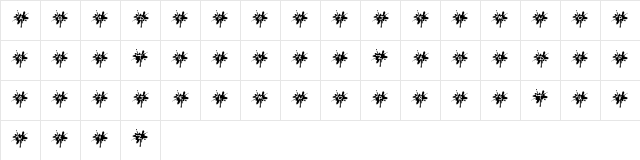
KR Squished Mosquito Regular Free Font
KR Squished Mosquito Regular
Design Context for KR Squished Mosquito
KR Squished Mosquito is a composed and adaptable typeface that performs quietly and consistently across a wide range of design contexts.